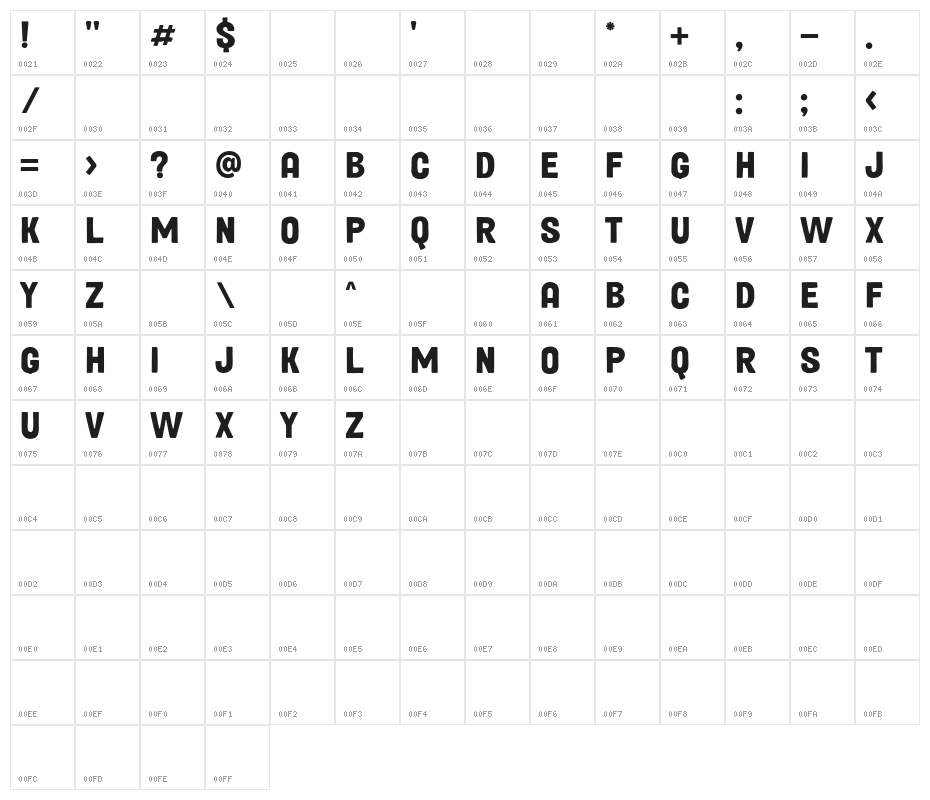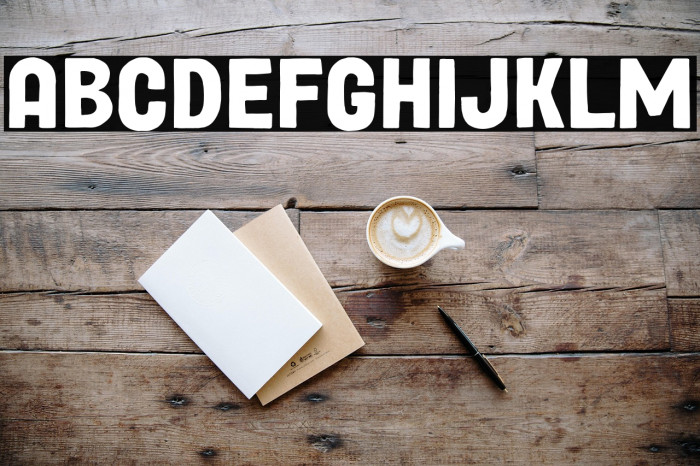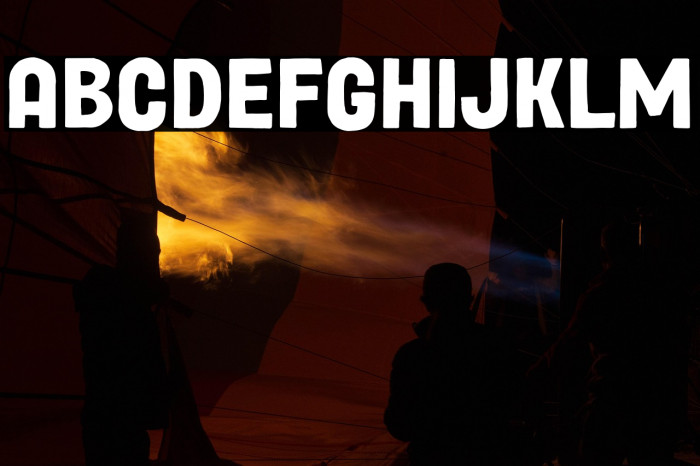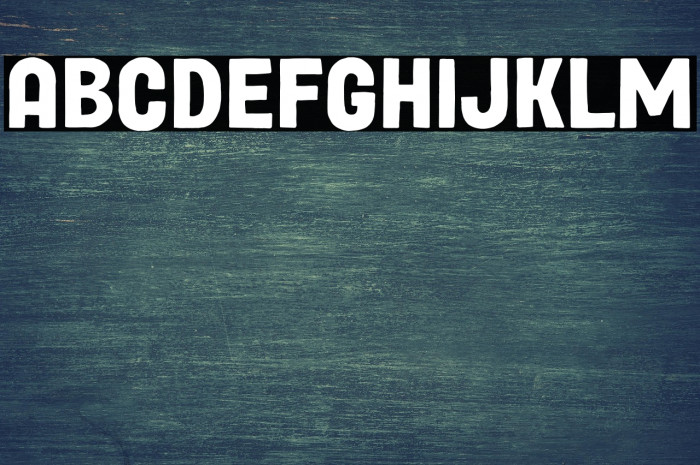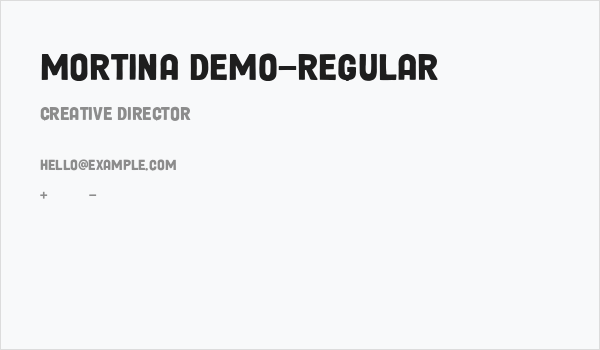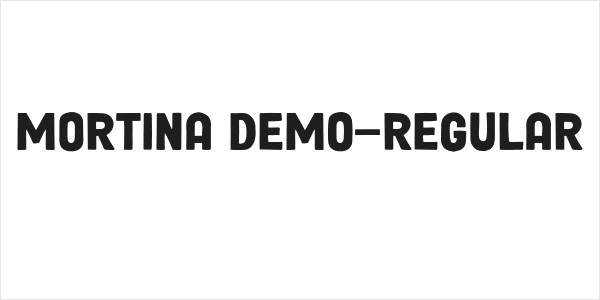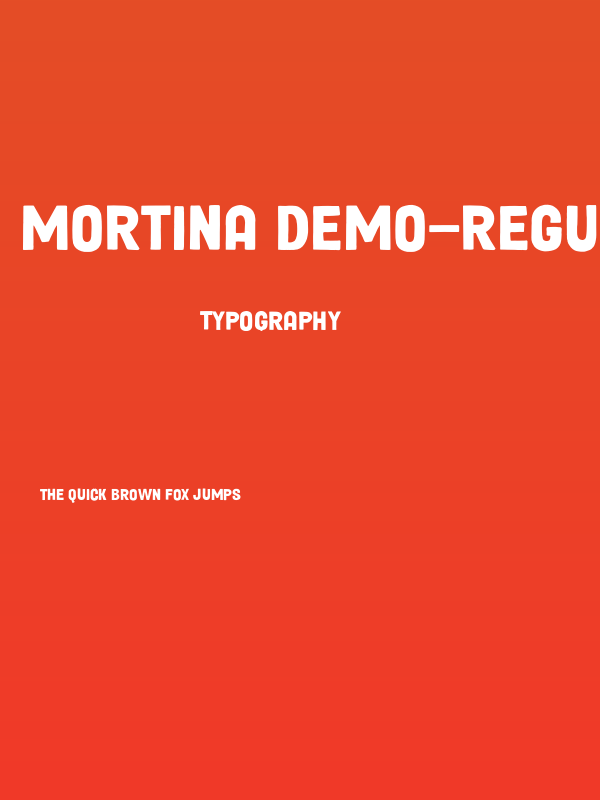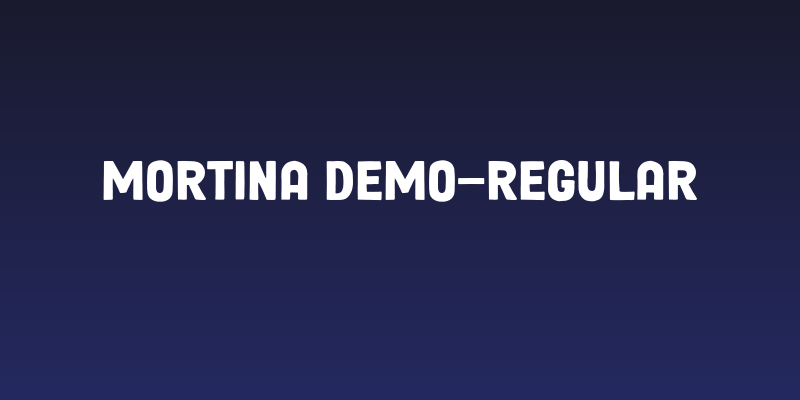
Mortina DEMO-Regular Font
Mortina DEMO-Regular Description
This font features bold, thick strokes with a slightly condensed appearance, giving it a strong and impactful look. The characters are well-defined with a uniform thickness that maintains readability while adding a touch of modern flair. The uppercase letters are particularly striking, with a consistent height and width that make them suitable for headlines and attention-grabbing text. The lowercase letters follow the same design principles, ensuring cohesion throughout the typeface. Special characters are included, maintaining the same bold style, making this font versatile for various design needs.
| Proposed Projects | This font is perfect for branding projects, poster designs, and any application where a strong visual impact is needed. Its bold nature makes it suitable for headlines, logos, and advertising materials. |